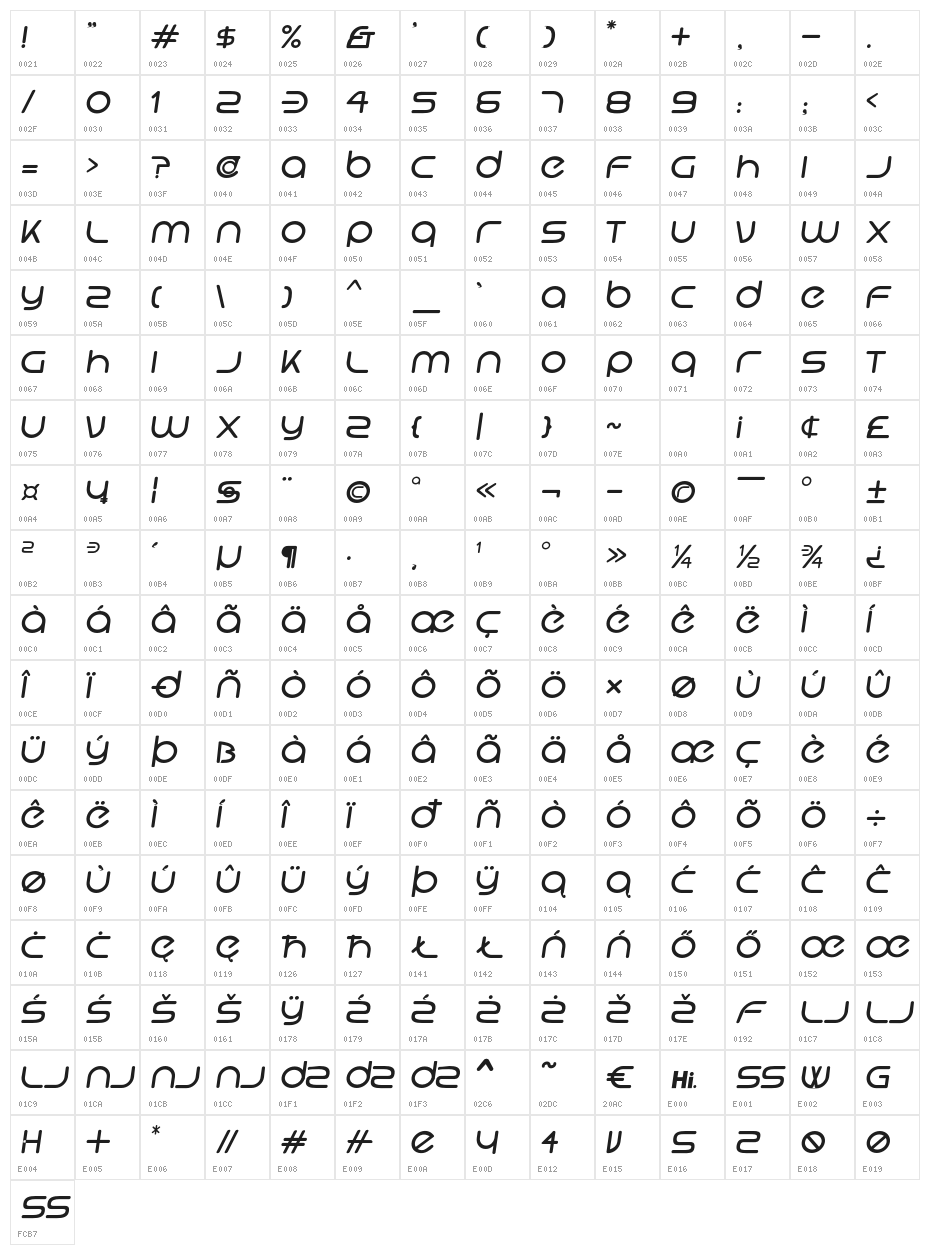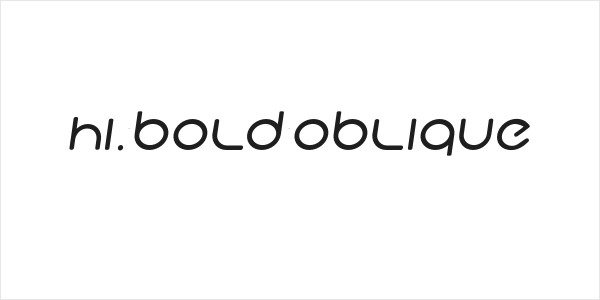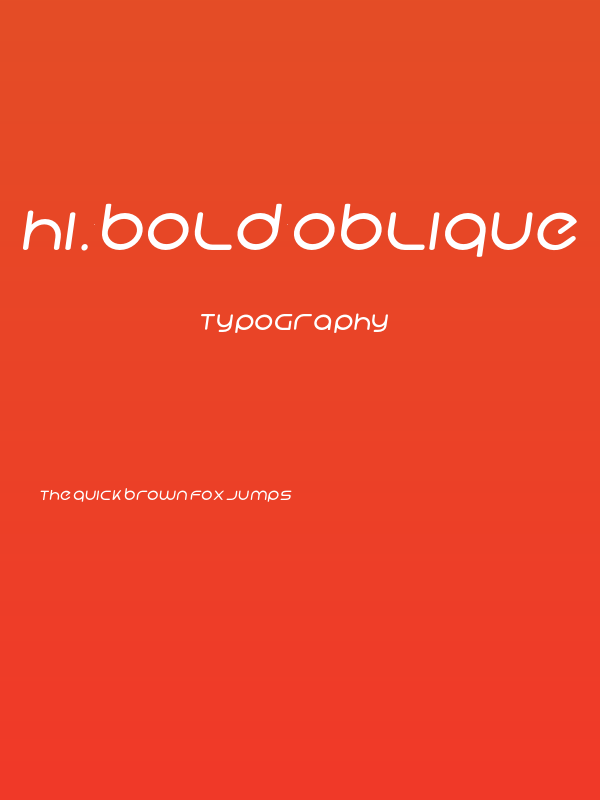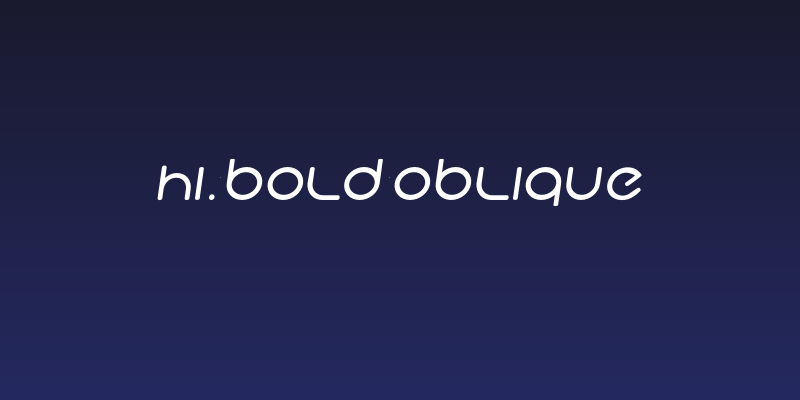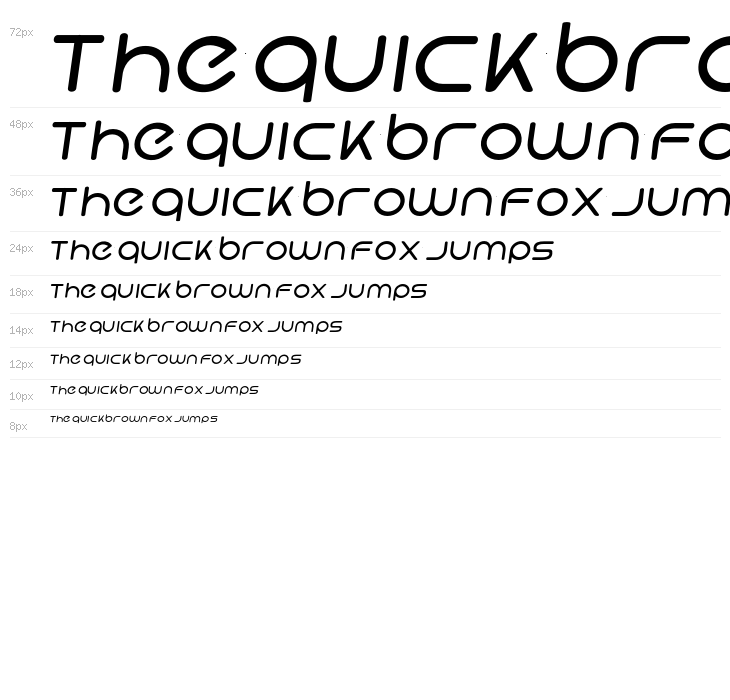
Hi. Bold Oblique Font
Hi. Bold Oblique Description
This font features a sleek, modern design with a futuristic flair. The characters are rounded and slightly elongated, giving them a streamlined appearance. The strokes are consistent in thickness, providing a uniform look across all characters. The font has a slight slant, adding a dynamic and forward-moving feel. It includes a full set of uppercase and lowercase letters, numbers, and a variety of special characters. The overall style is clean and minimalistic, making it suitable for contemporary designs.
| Proposed Projects | Ideal for tech-related branding, modern advertising, and futuristic design projects. |